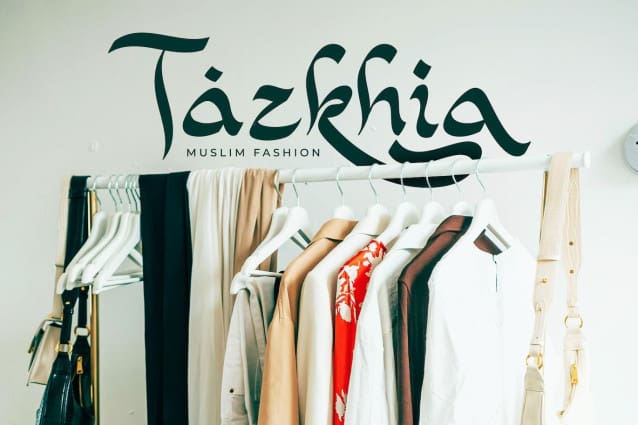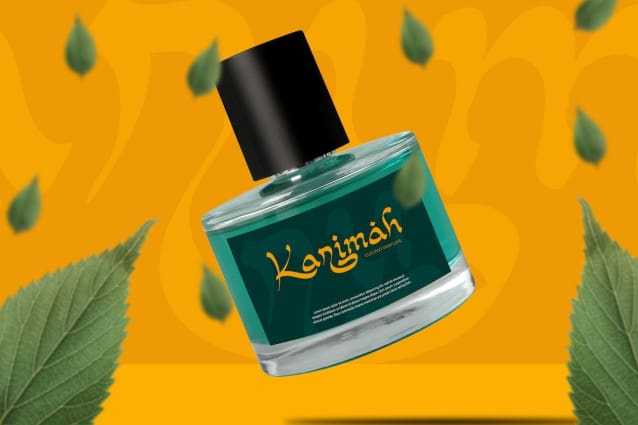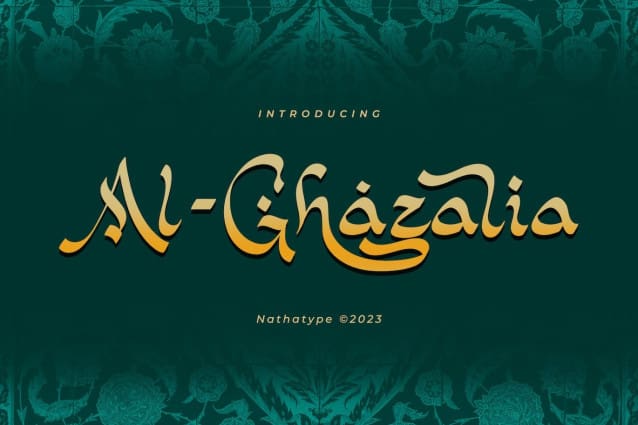
Al – Ghazalia Font
Al – Ghazalia Font is an exquisite font meticulously designed to capture the essence of Arabic calligraphy. Al-Ghazalia is not just a simple typeface, it is a bridge between tradition and modernity. Al-Ghazalia’s characters draw inspiration from the rich tradition of Arabic lettering, with graceful, curving lines and a stunning high-contrast design. Each letter is carefully shaped, showcasing the intricate beauty of Arabic calligraphy while adding a contemporary touch.